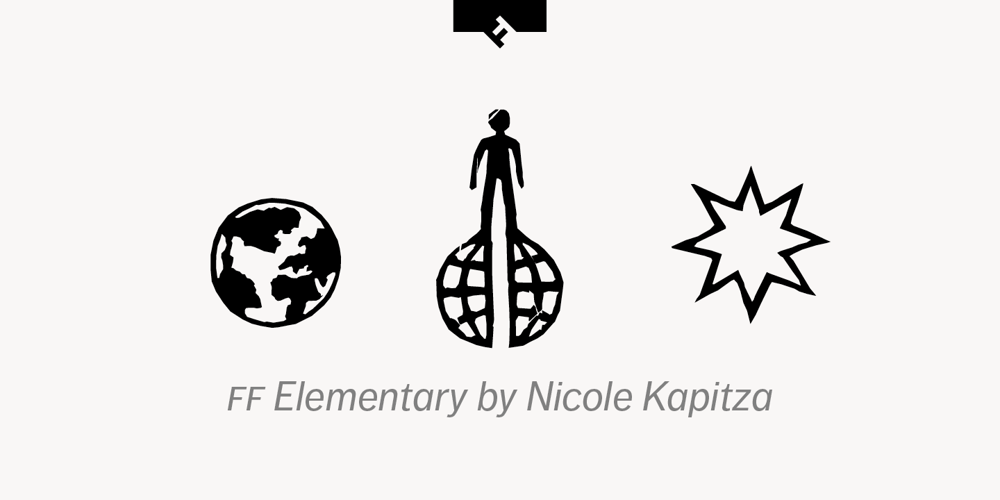
FF Elementary Font Family was designed by Nicole Kapitza and published by FontFont. FF Elementary contains 3 styles and family package options. German type designer Nicole Kapitza created this pi and symbols FontFont in 1995. FF Elementa is a series of three picture fonts: FF Elementary Earth, FF Elementary Life, and FF Elementary Space. It comes with tabular oldstyle and proportional oldstyle figures.